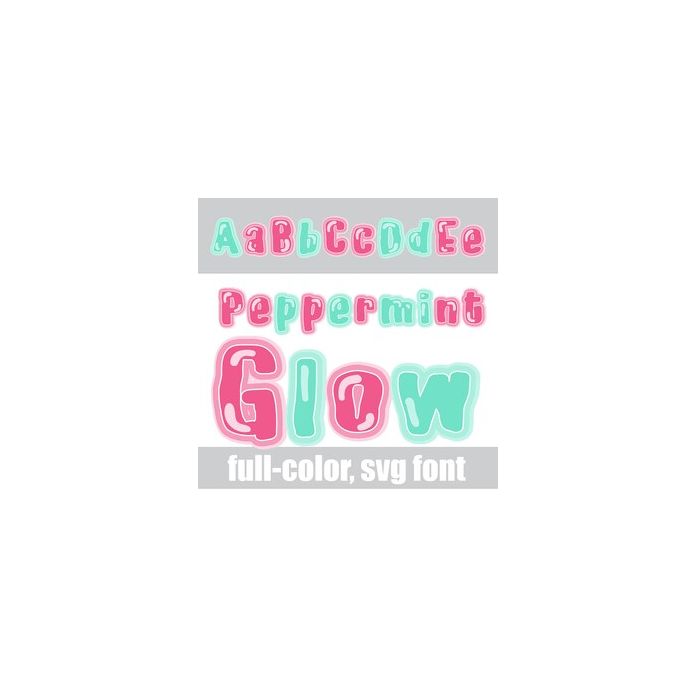
This full-color font features squishy, glowing lettering in a peppermint color palette. This full-color font is a video-game style font done in a pumpkin color palette. There is an alt case w/ additional colors you can access through your system or Silhouette's glyph map.